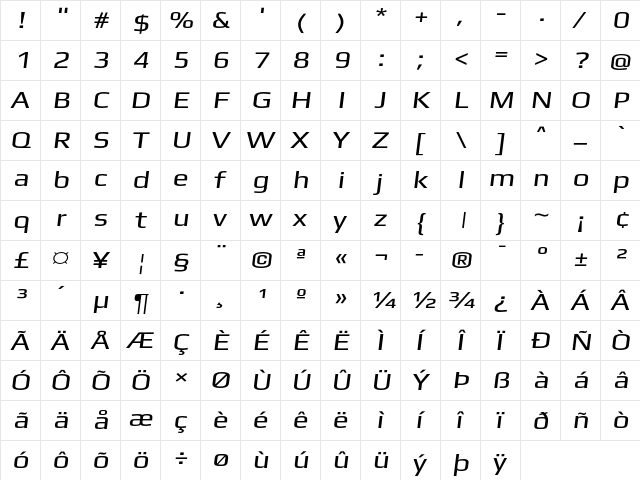
Gamestation Extended Italic
| Foundry | Jonas Hecksher, Playtype-types AS |
| Designer | Jonas Hecksher |
Design Context for Gamestation Extended Typeface
Gamestation Extended offers clean, dependable letterforms without strong stylistic allegiance, making it a practical choice for designers who need flexibility. The dynamic lean of this cut emphasises speed and emphasis in any layout.
Pro Tip: Try Gamestation Extended for annotation and caption copy alongside an upright companion — the contrast in angle creates a dynamic but ordered typographic system.